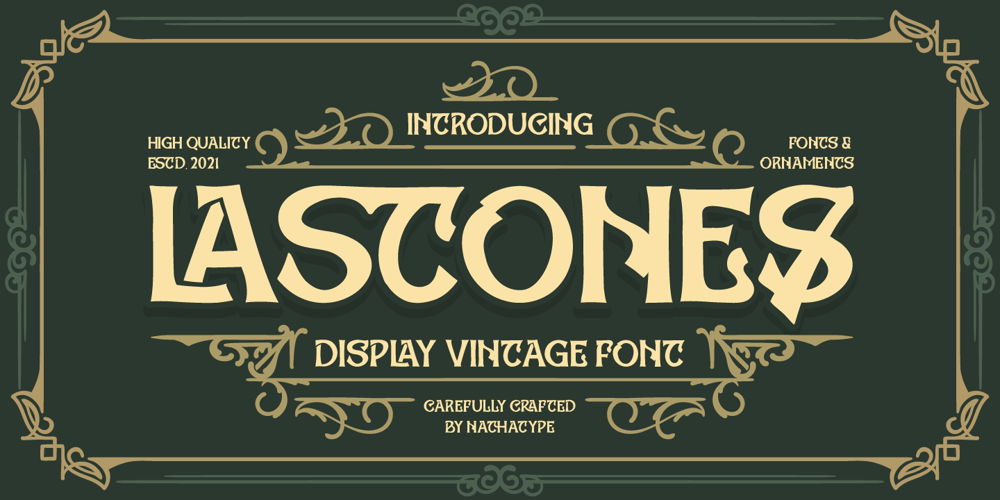
Lastones Font Family was designed by Donis Miftahudin and published by Nathatype. Lastones contains 2 styles and family package options. Have you been looking for a vintage font? Do you dream of creating headings that stand out and inspire modern and artistic?Lastones – A Vintage FontLastones is a display font made all in uppercase typeface that shows retro looks. A great display font that appears to drip down on the page, as if sprayed there only moments ago. Well suited to titles, poster designs, branding, and logos.Our font always includes Multilingual Support to make your branding reach a global audience. Features: Swashes Stylistic Set PUA Encoded Numerals and Punctuation Thank you for downloading premium fonts from Nathatype